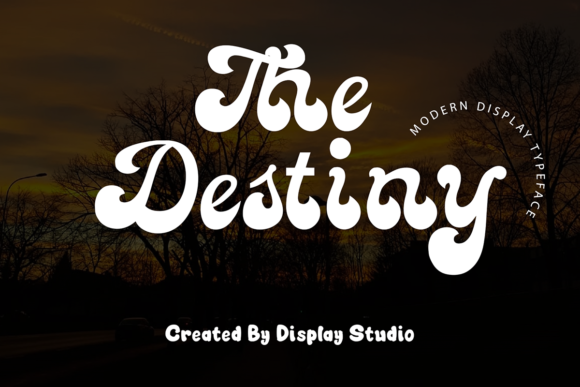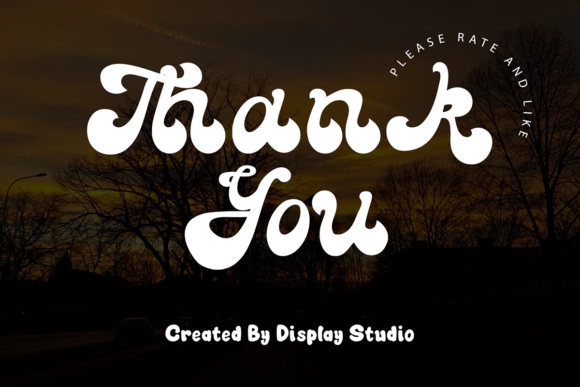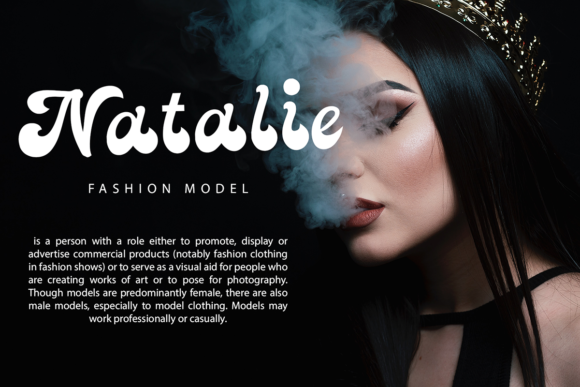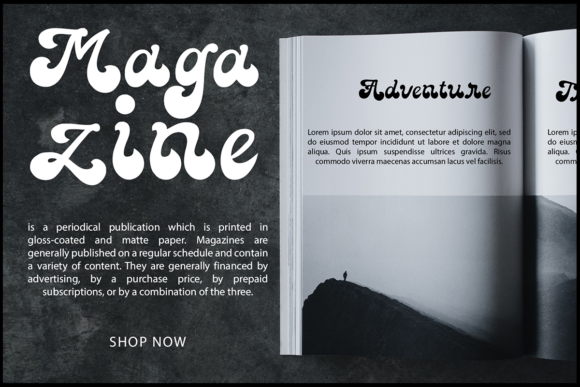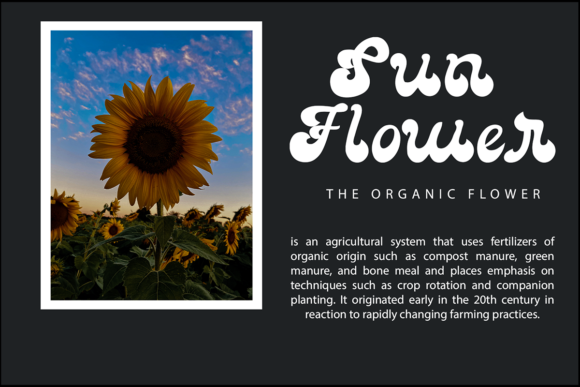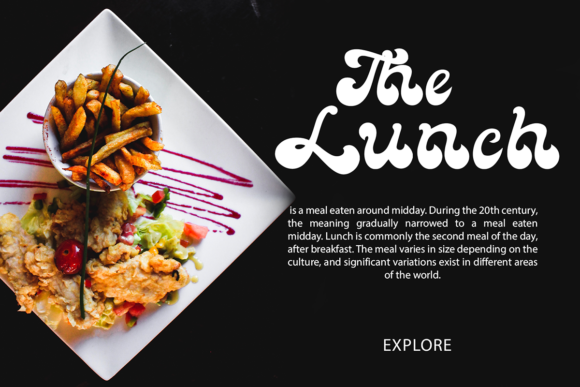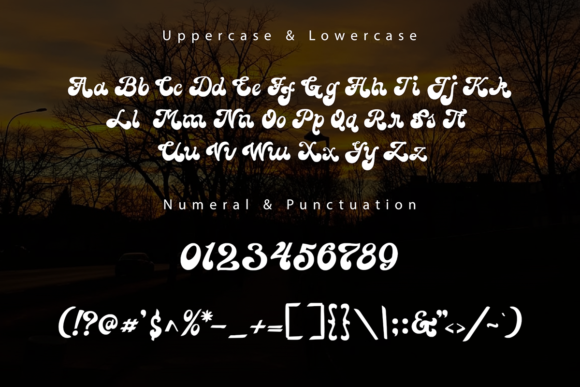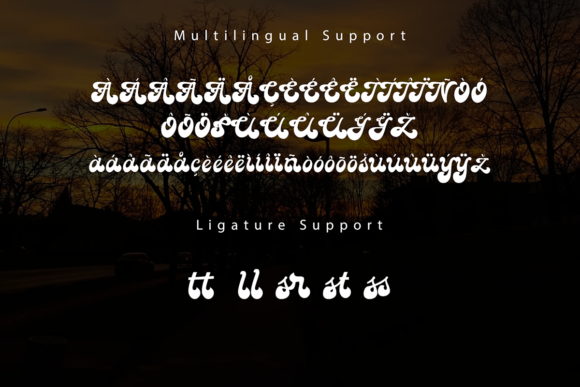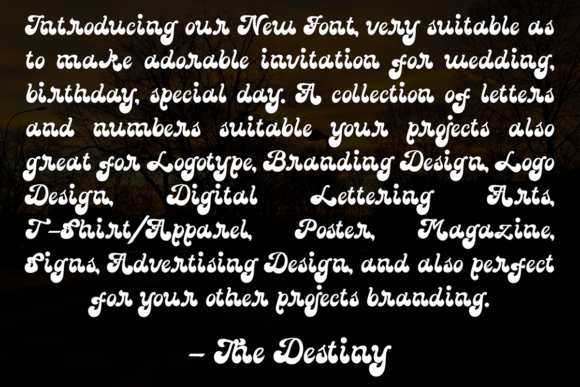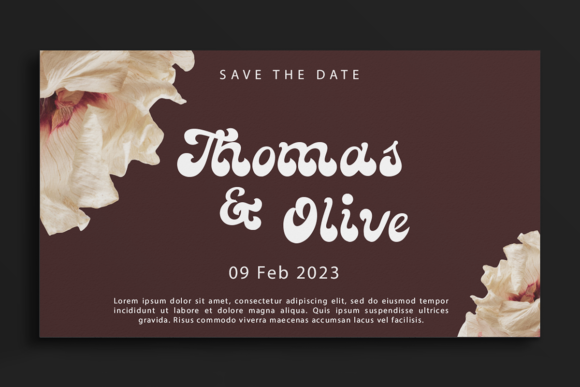
The Destiny Font
About The Destiny Font
The Destiny is a modern and bold handwritten font. This typeset is perfect for brand logos, invitations, greeting cards, or even any kind of project. With multilingual features and style variations, this typeface would further enhance the aesthetical aspect of your work.